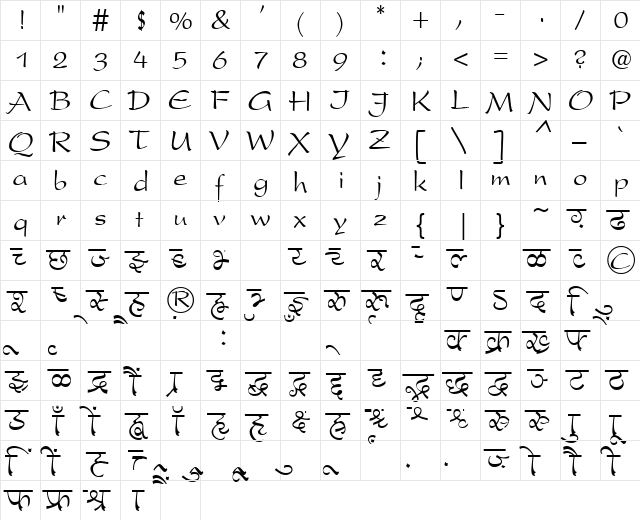
LangscapeDevManorama Normal
Design Context for LangscapeDevManorama Typeface
LangscapeDevManorama takes a measured approach to typography — its balanced proportions and neutral character make it a reliable workhorse for both digital and print work.